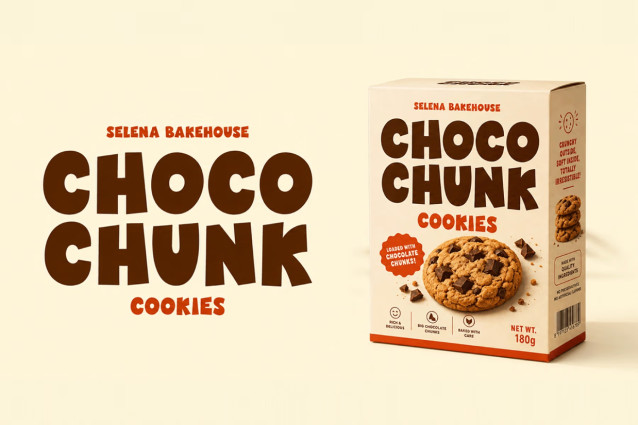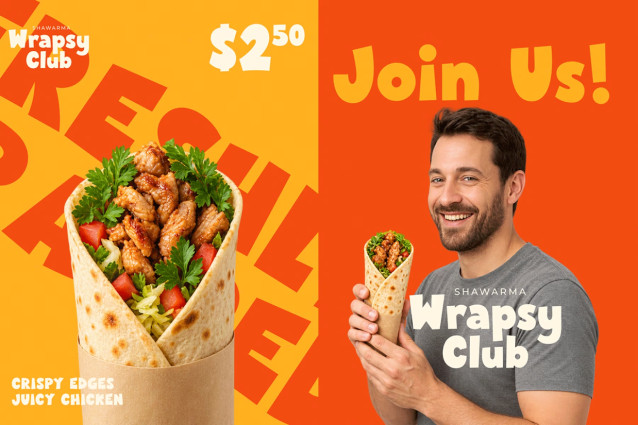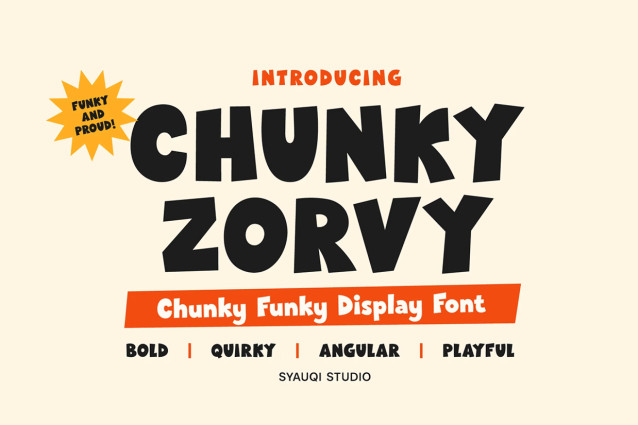
Chunky Zorvy — Chunky Funky Display Typeface
Chunky Zorvy is a bold and quirky chunky display typeface that brings playful energy, funky shapes, and expressive character to modern visual design. Inspired by retro graphic aesthetics and reinterpreted with a contemporary attitude, Chunky Zorvy combines heavy letterforms, playful distortion, rounded and angular details, and an irregular rhythm to create typography that feels bold, fun, distinctive, and memorable.
Designed for eye-catching display typography, Chunky Zorvy works especially well for branding, logos, packaging, posters, advertising, apparel, merchandise, social media graphics, music artwork, event graphics, and creative campaigns. Its strong chunky shapes make short words, headlines, and statements instantly stand out, turning typography into a powerful graphic element.